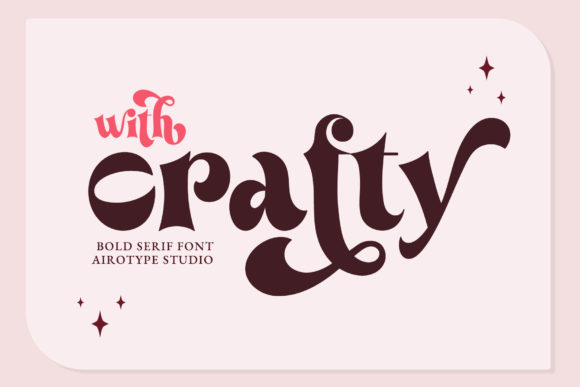
Unleash the Power of Expression with With Crafty Font: The Epitome of Sophistication for Fashion Brands
Welcome to the realm of With Crafty Font, an extraordinary serif typeface that exudes elegance and innovation. Meticulously crafted by the skilled artisans at airotype, With Crafty isn't just a font; it's an artistic masterpiece waiting to be discovered.
Discover the allure of With Crafty, a font that harmoniously blends modern sensibilities with a touch of vintage charm. Its bold strokes and sharp serifs command attention, while its delicate curves add a layer of timeless grace. Whether you're working on fashion branding, creating logos that leave a lasting impression, or designing invitations that evoke a sense of wonder, With Crafty is your ultimate font companion.
With Crafty's versatile nature, the possibilities are endless. Let your creativity soar as you embark on projects that range from sleek and contemporary to ethereal and romantic. Its adaptability extends to a wide spectrum of applications, including crafting, sticker designs, and sublimation projects. With Crafty complements any creative endeavor, adding a touch of sophistication and refinement.
Immerse yourself in the world of With Crafty, a font that effortlessly captures the essence of fashion and style. Its PUA encoding ensures seamless access to a treasure trove of glyphs and swashes, empowering you to unleash your imagination and add intricate details that elevate your designs. With With Crafty, you're not just creating, you're leaving an indelible mark on the fashion landscape.
Embark on a typographic journey like no other with With Crafty Font. Its striking presence and captivating charm will transform your designs into works of art. Experience the With Crafty difference today and elevate your creative projects to new heights of excellence.